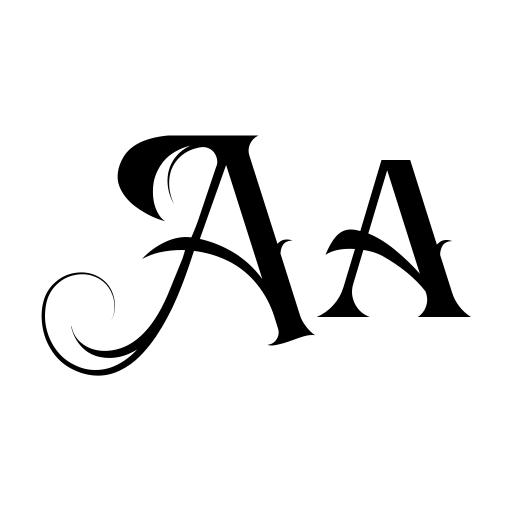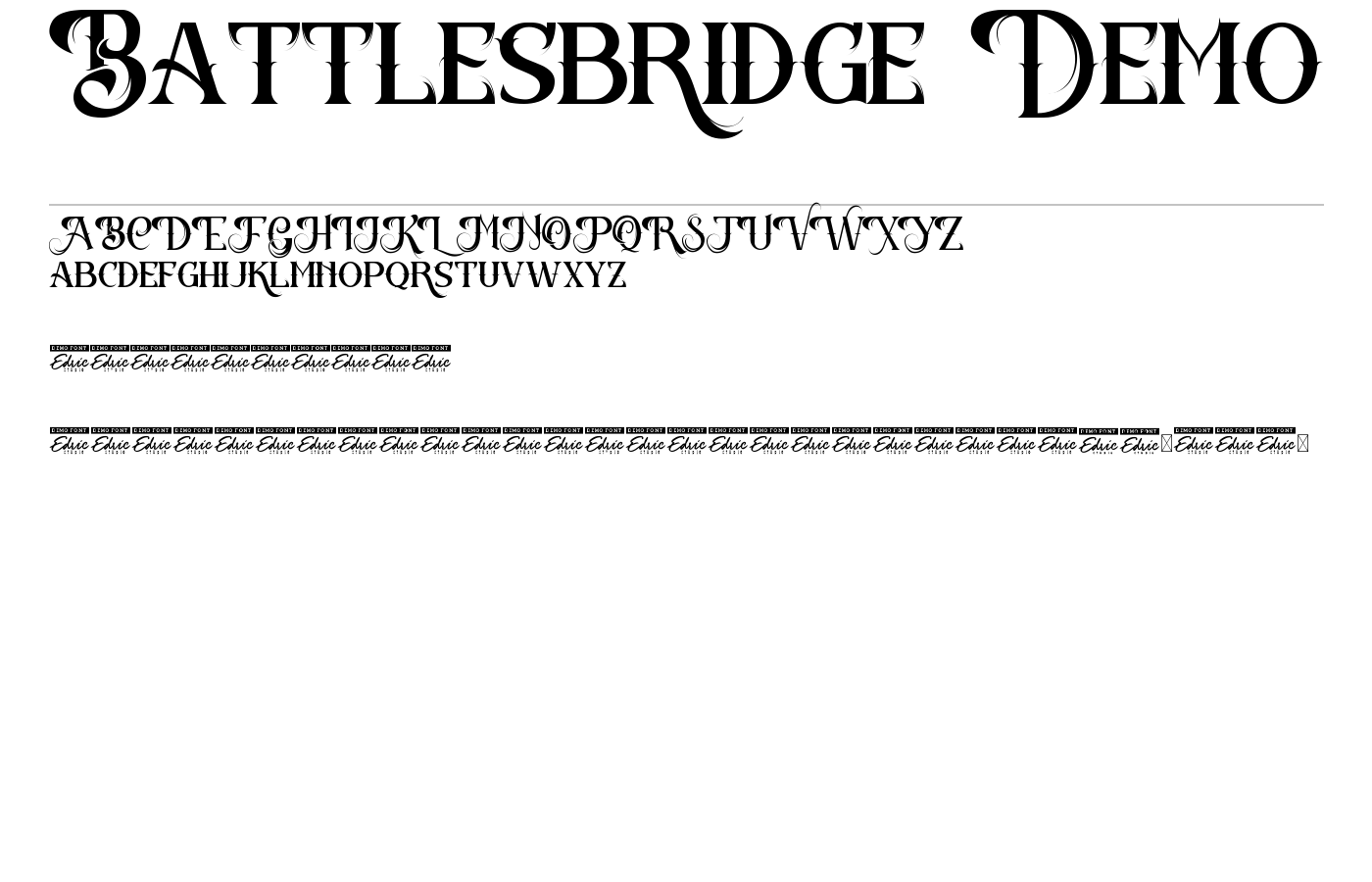
Battlesbridge Demo is an ornamental serif font with a dramatic and elegant flair, featuring high contrast between thick and thin strokes and intricate, decorative serifs. Its elaborate letterforms, including unique flourishes on characters like B, R, and Q, give it a vintage, luxurious feel, making it perfect for sophisticated headlines, logos, and branding that seek to convey style and refinement. This font works best in large display settings where its artistic details can truly shine.
Battlesbridge Demo Font
About Battlesbridge Demo Font